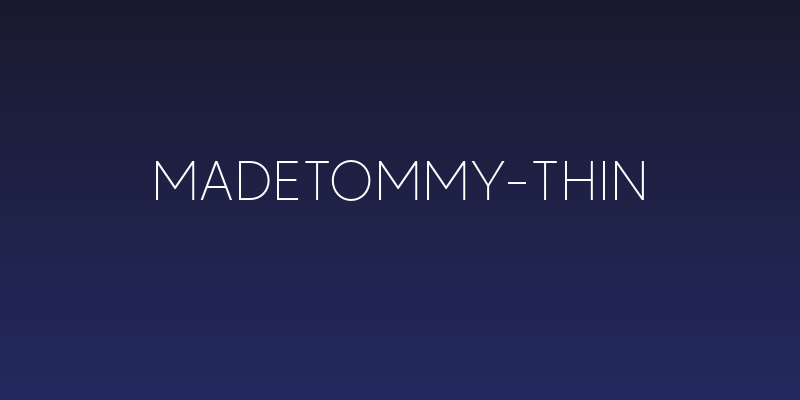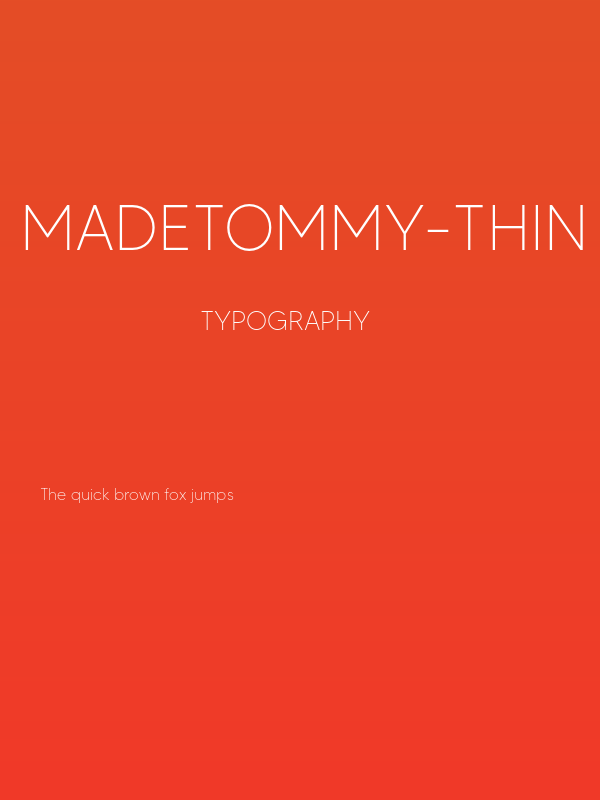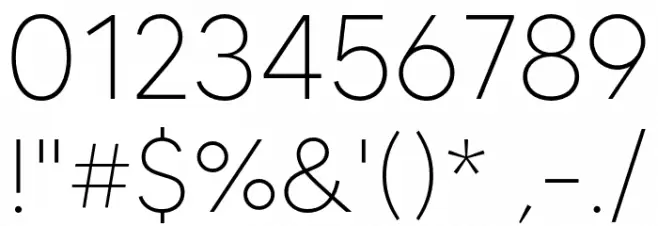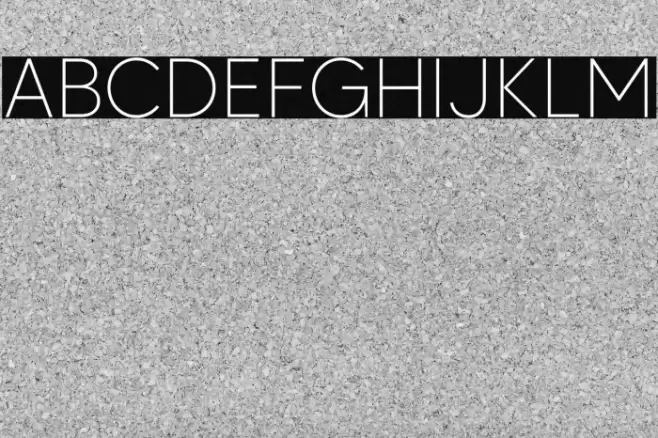
MADETOMMY-Thin Font
MADETOMMY-Thin Description
This font features a sleek, minimalist design with clean lines and a modern aesthetic. The characters are evenly spaced, providing a balanced and harmonious appearance. The thin strokes give it an elegant and sophisticated look, making it suitable for contemporary design projects. Its simplicity and clarity ensure readability, while the uniformity of the letterforms adds to its overall appeal. The font's geometric shapes and consistent proportions make it versatile for various applications.
| Use Case | Headlines, Body text, Logos |
| Proposed Projects | Ideal for branding, editorial design, digital interfaces, and minimalist posters. |